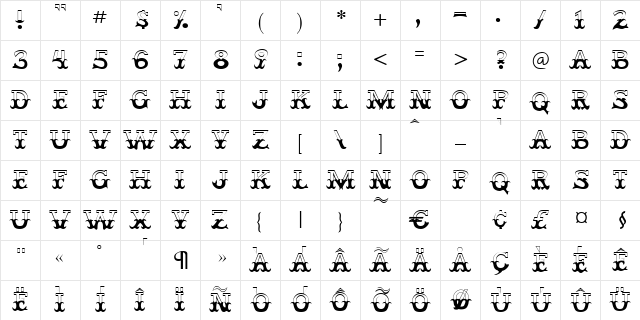
Klavier Regular Free Font
Klavier Regular
Design Context for Klavier
Klavier is a composed and adaptable typeface that performs quietly and consistently across a wide range of design contexts.
Pro Tip: Use Klavier in both headline and body roles to test its range before committing to a single application.